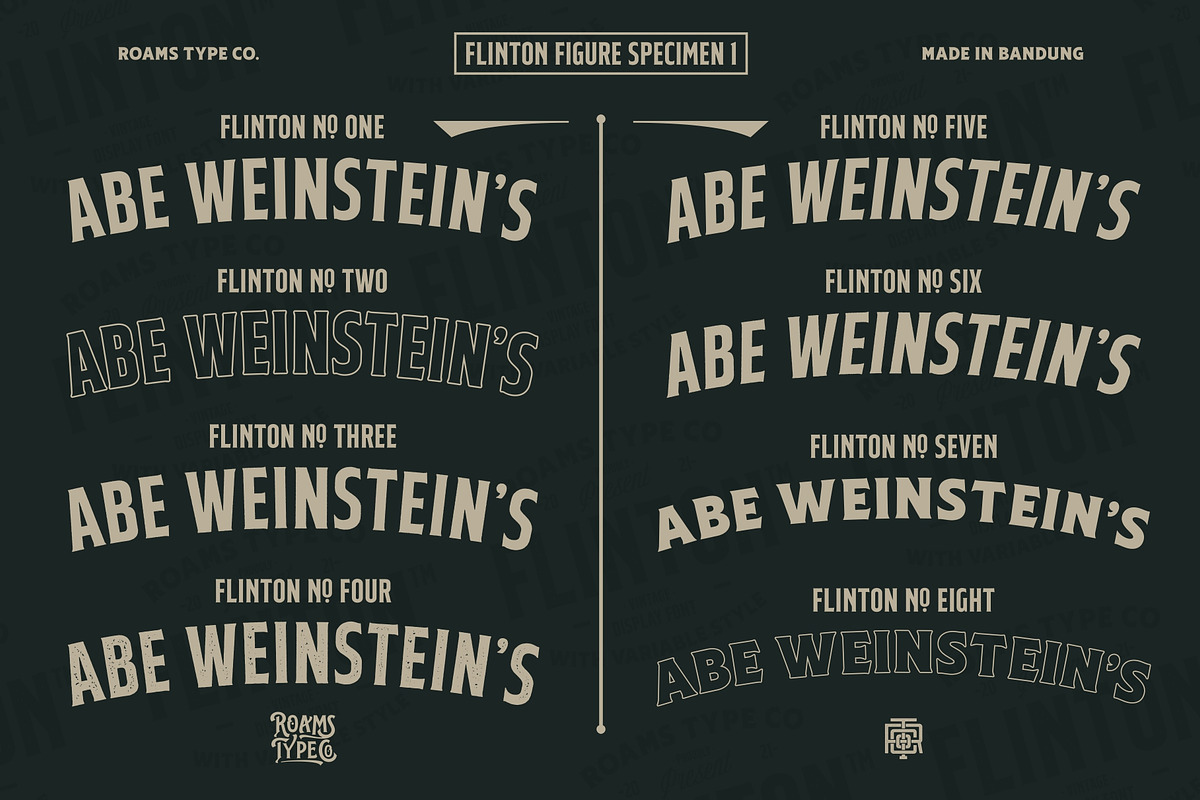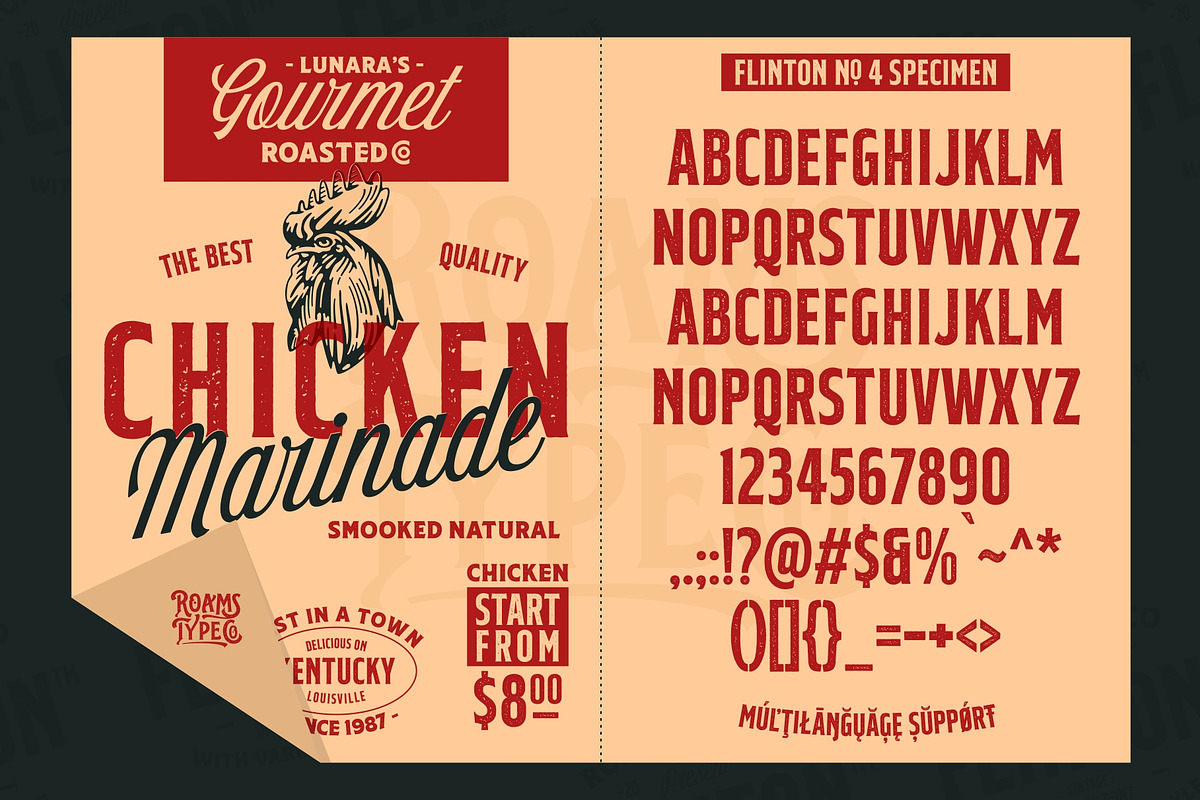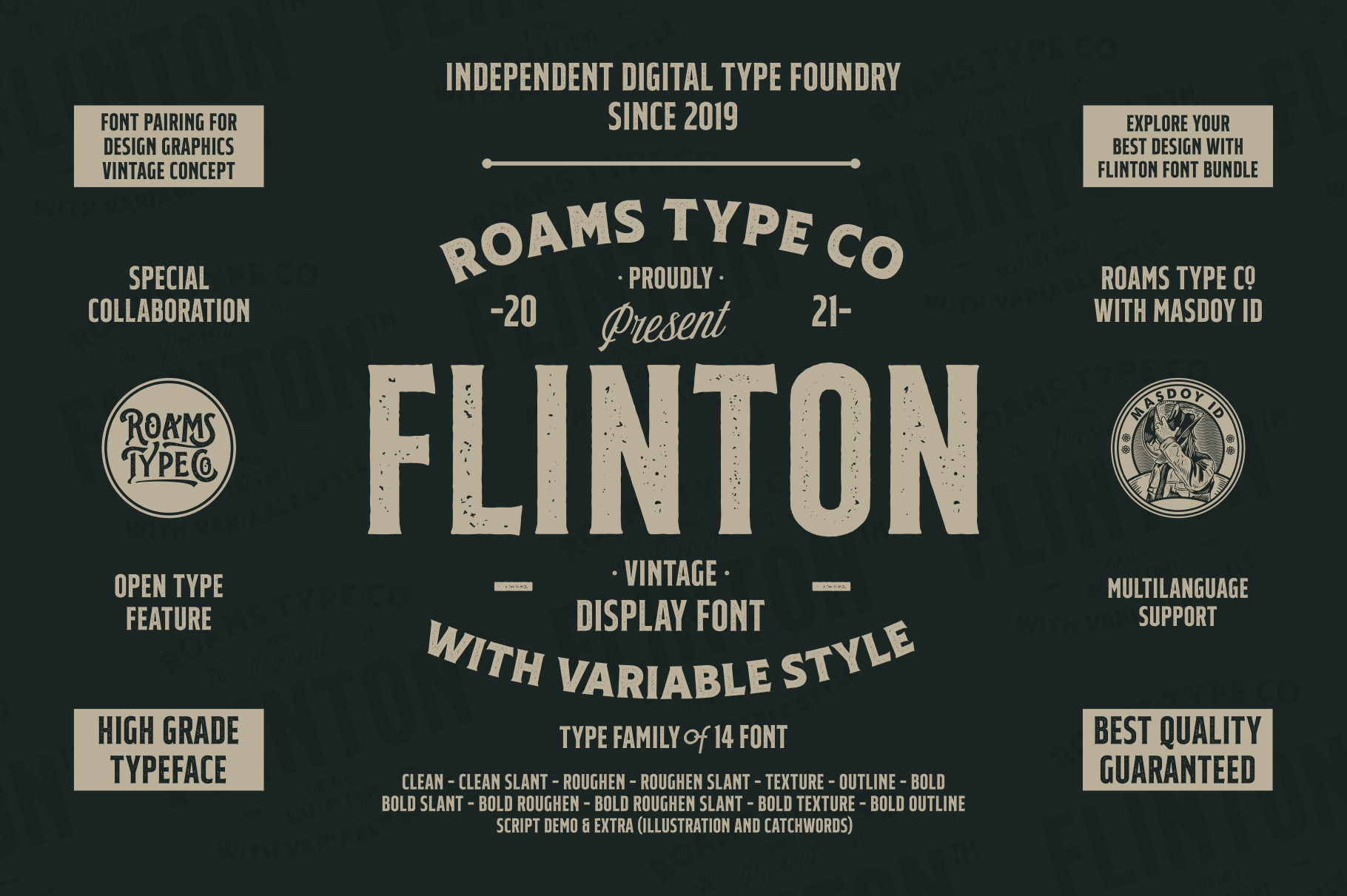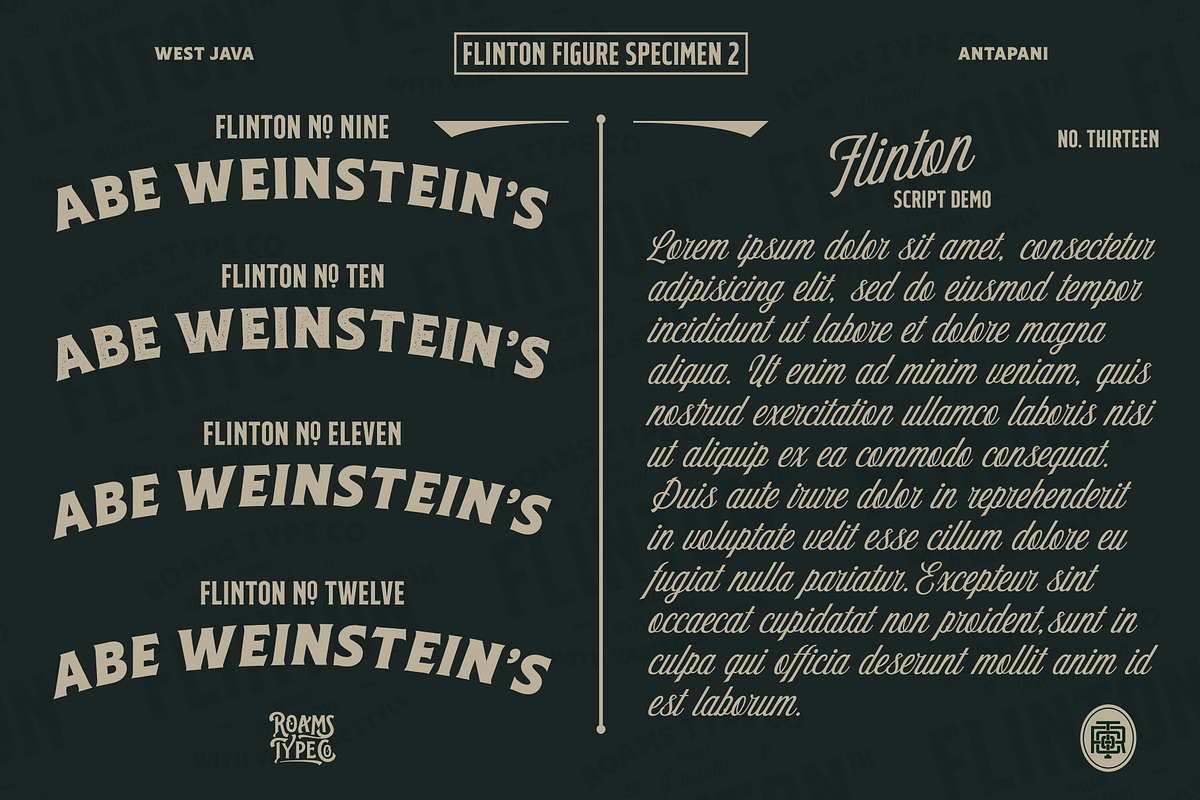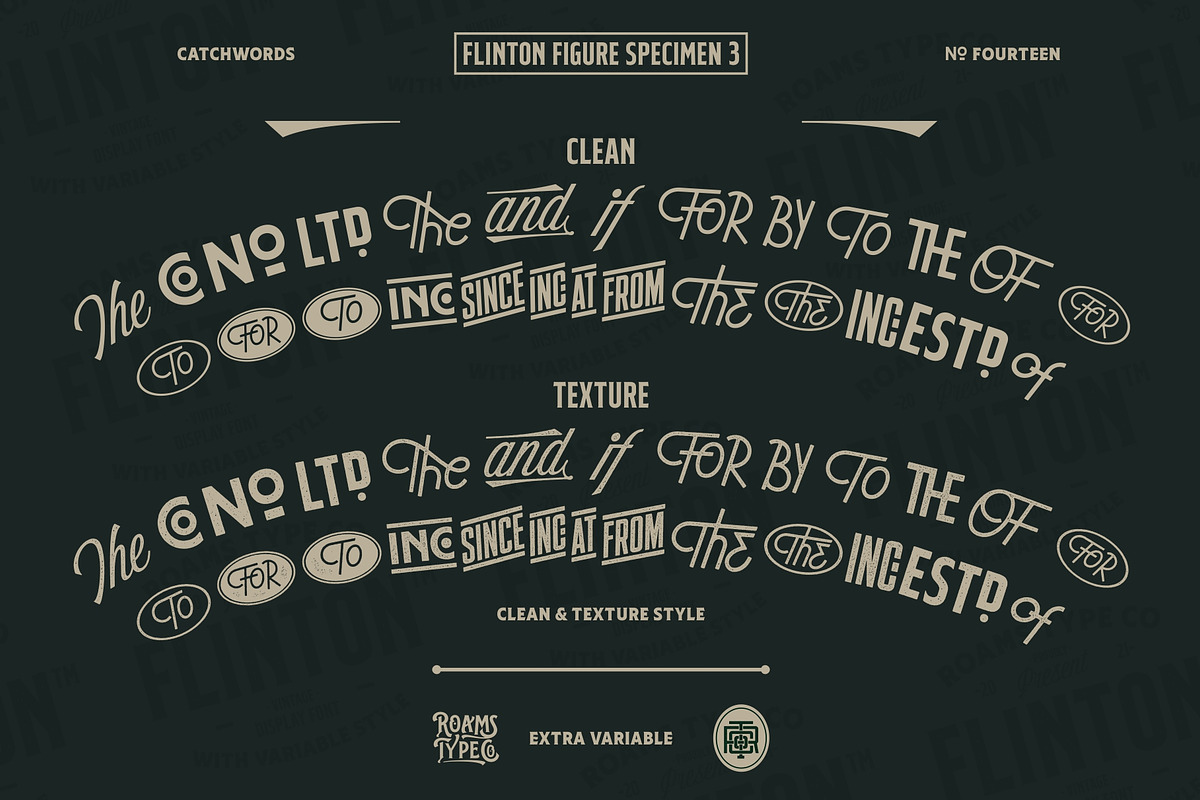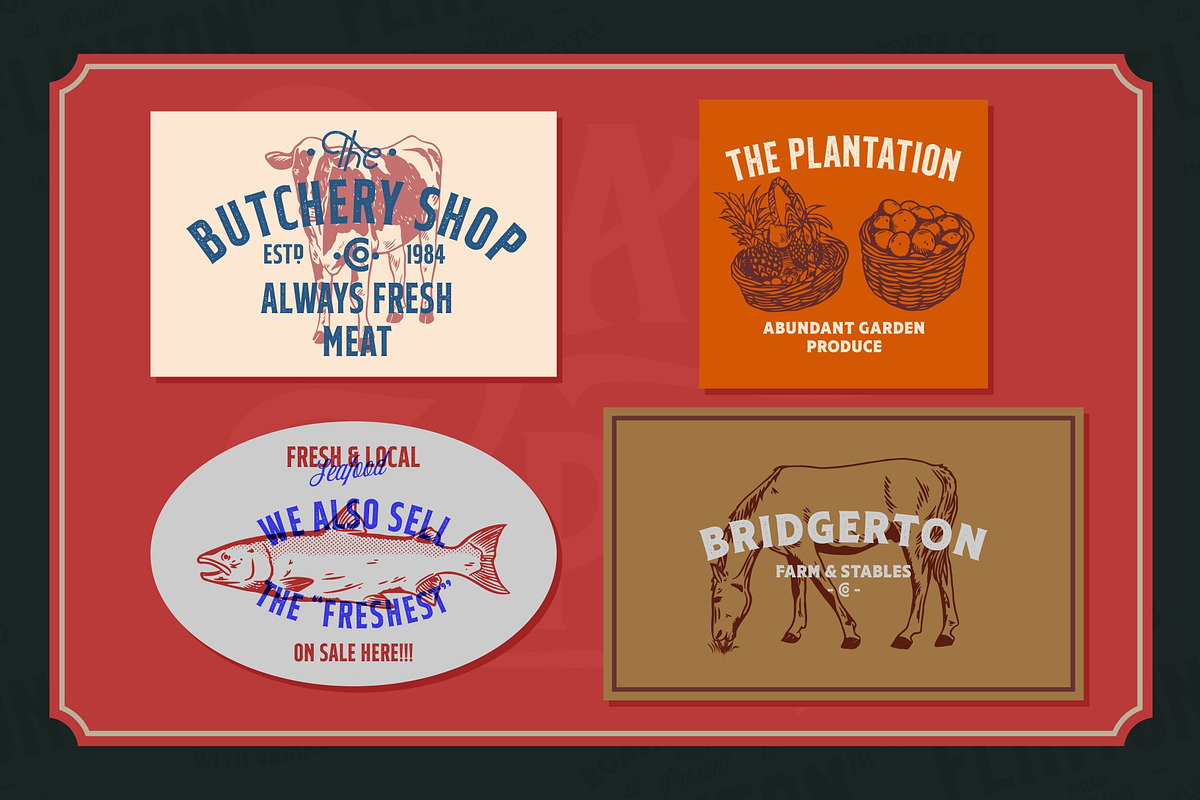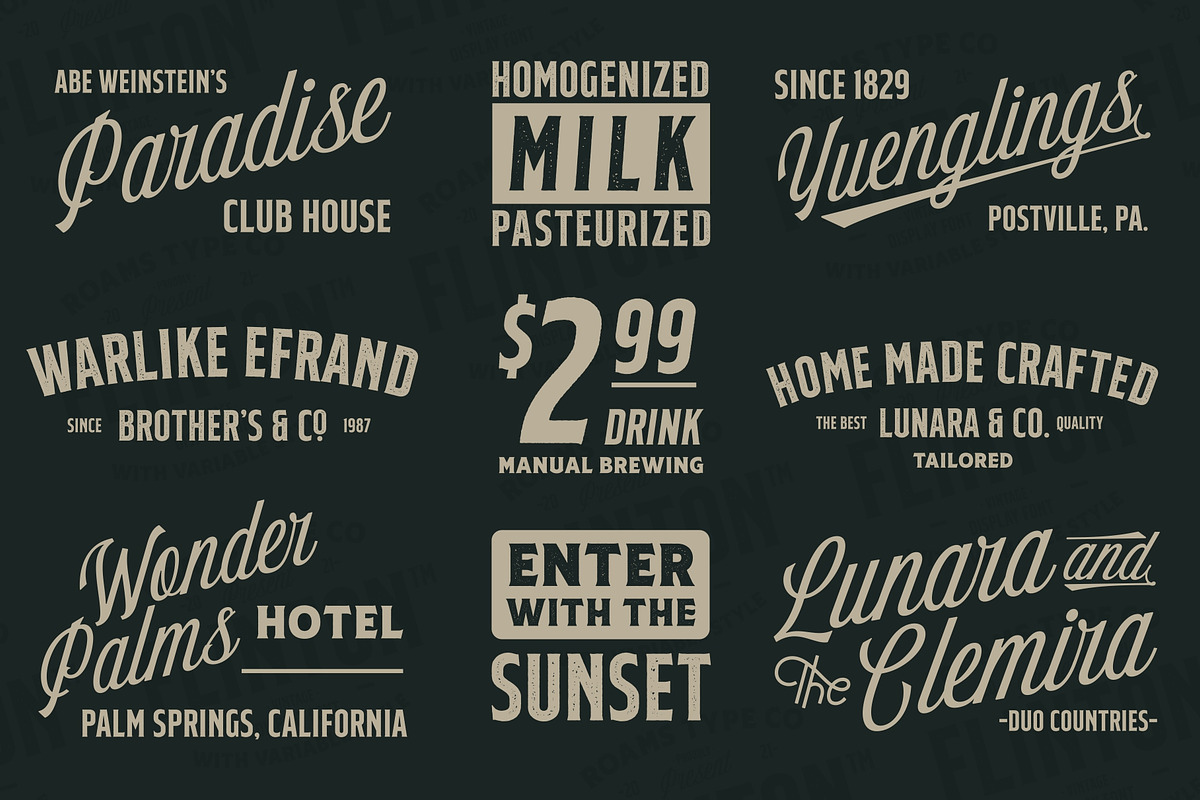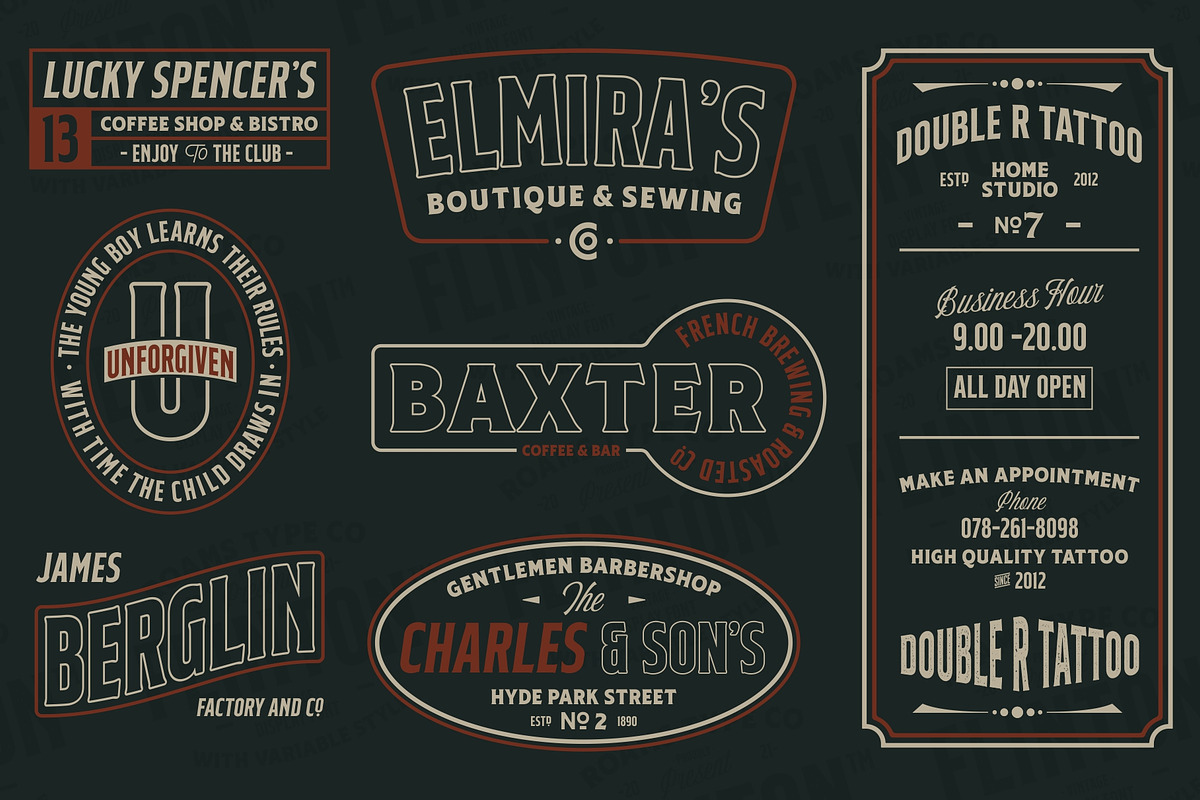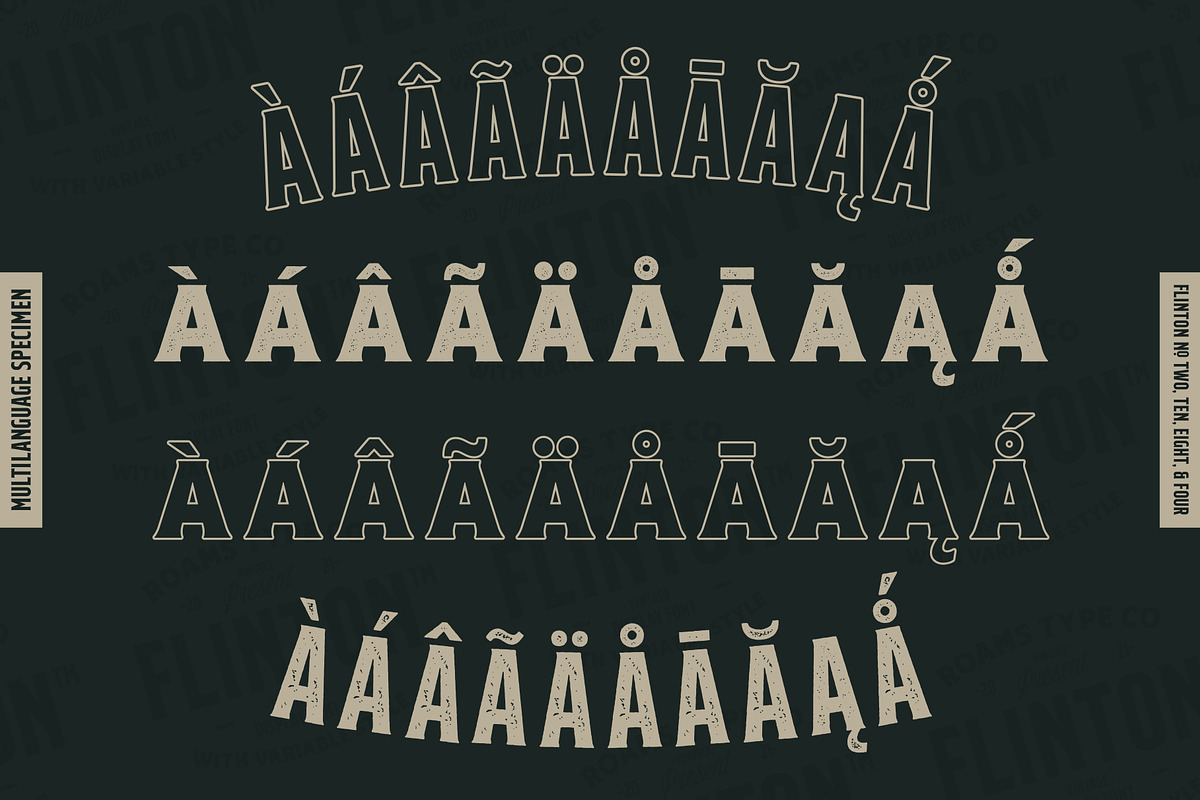
Flinton - Vintage Bundle Fonts
FLINTON
Flinton is a basic Vintage Serif Display Font.
Flinton Font Family consists of 3 types of letters that have several variants into 14 font style, Include Regular Serif, Bold Serif & Script Demo and Catchwords & Illustrations for extras. This font is suitable for types of designs that have elements of Vintage Concepts, such as logotypes, posters, merchandise designs, etc. And this font has an opentype feature, also supported for several languages,
Which consists of several styles:
- Clear
- Outline
- Roughen
- Texture
- Slant
- Texture Slant
- Script Demo
- Catchwords
- Illustrations
- Opentype Feature
- Multilanguage Support
- Numeral Sepparators
- Math Symbol
- More 1000 Count Glyphs